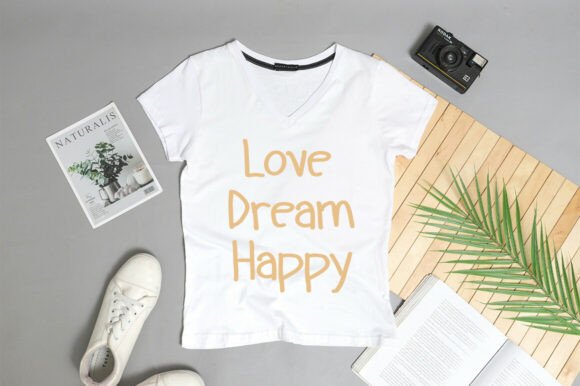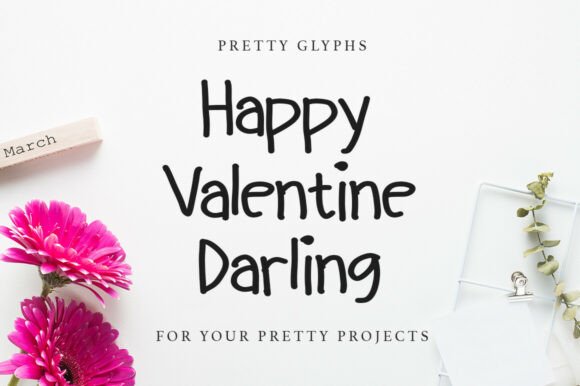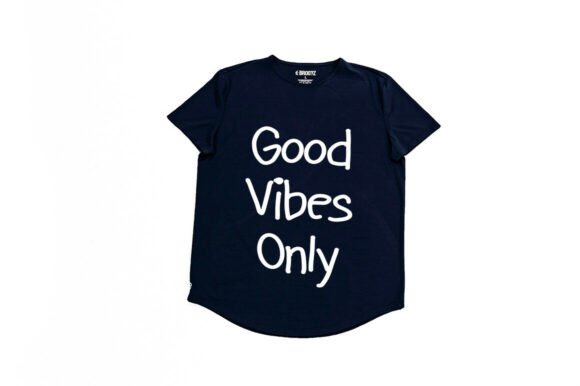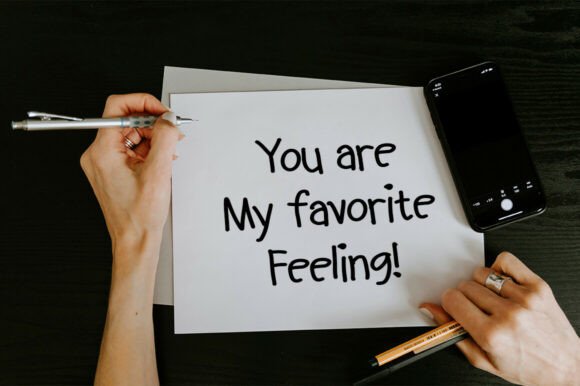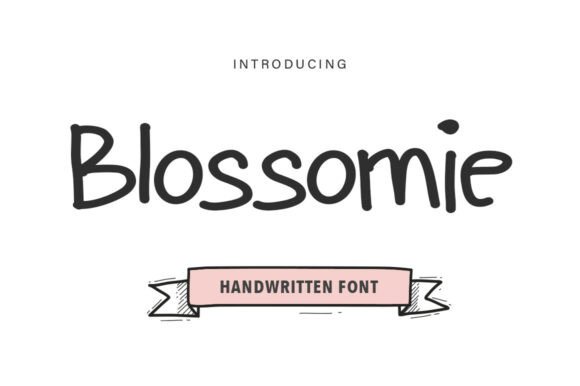
Bloomsie Font: The Sweetest Addition to Your Design Toolbox
I’ll never forget the time I was working on a branding project for a local florist. I had the logo, the color palette, and the overall aesthetic nailed down, but something was missing. As I scrolled through font after font, I just couldn’t find the right fit. That’s when I stumbled upon Bloomsie, a delightful handwritten typeface that captured the “natural-and-sweet” soul of the brand. In this article, I’ll share my love for Bloomsie, its features, and how to make the most of it in your designs.
An Honest Review of Bloomsie
- ✅ Clean, casual print letterforms with a rhythmic, hand-penned flow
- ✅ Soft, rounded terminals that add a touch of warmth to any design
- ✅ Approachable aesthetic that’s perfect for independent businesses and creative projects
- ✅ Handcrafted feel that sets it apart from more generic fonts
While Bloomsie is an amazing font, it’s not without its quirks. Here are a few things to keep in mind:
- 🤔 It can be a bit too casual for very formal or corporate designs
- ⚠️ Some characters, like the lowercase “g” and “y”, have slightly different stroke widths, which can make it tricky to use in certain contexts
The Story Behind Bloomsie
Bloomsie was designed with the intention of capturing the sweet, organic charm of handwritten lettering. Its creator wanted to craft a font that would evoke feelings of warmth, approachability, and natural beauty. Whether you’re a designer, crafter, or creative hobbyist, Bloomsie is sure to become a favorite in your toolbox.
Q: What is Bloomsie best suited for?
A: Bloomsie is perfect for independent business branding, garden-to-table cafe menus, personalized gift tags, and high-impact social media headers.
Q: Is Bloomsie suitable for body text?
A: While Bloomsie is a beautiful font, it’s best suited for headlines, titles, and short paragraphs. For body text, you may want to choose a font with better legibility.